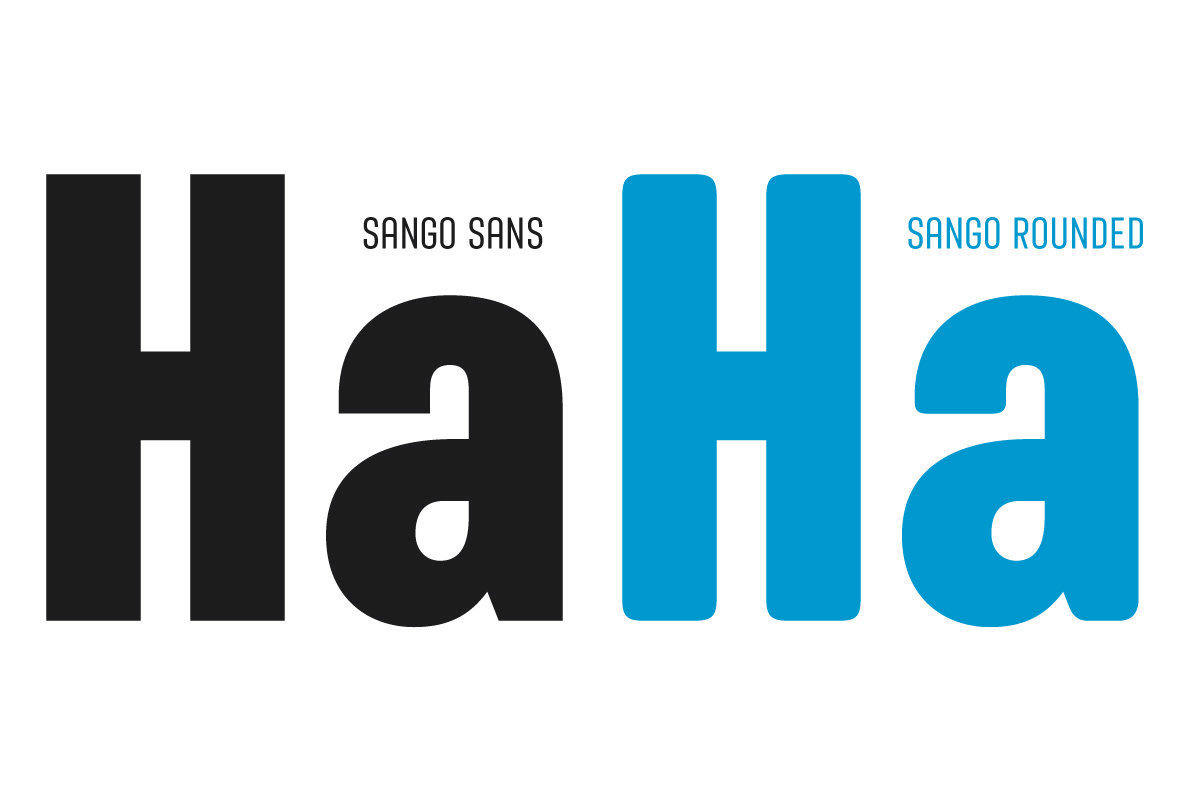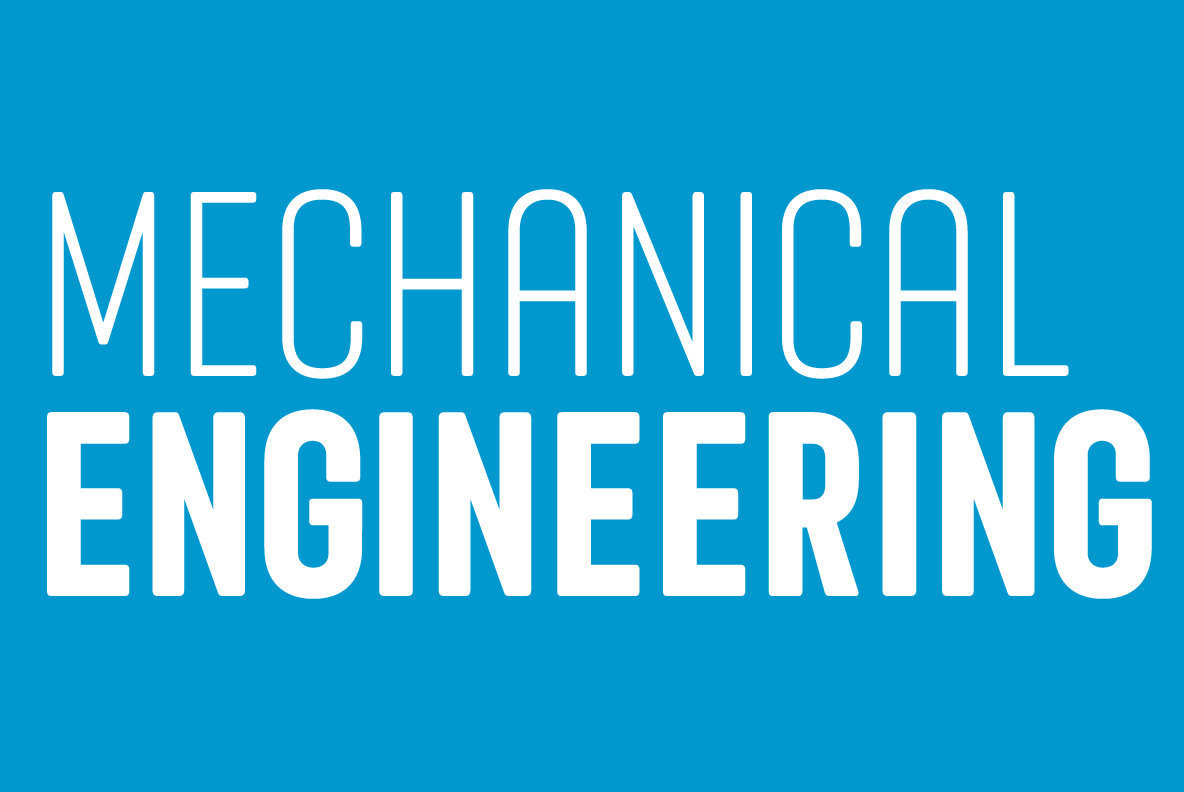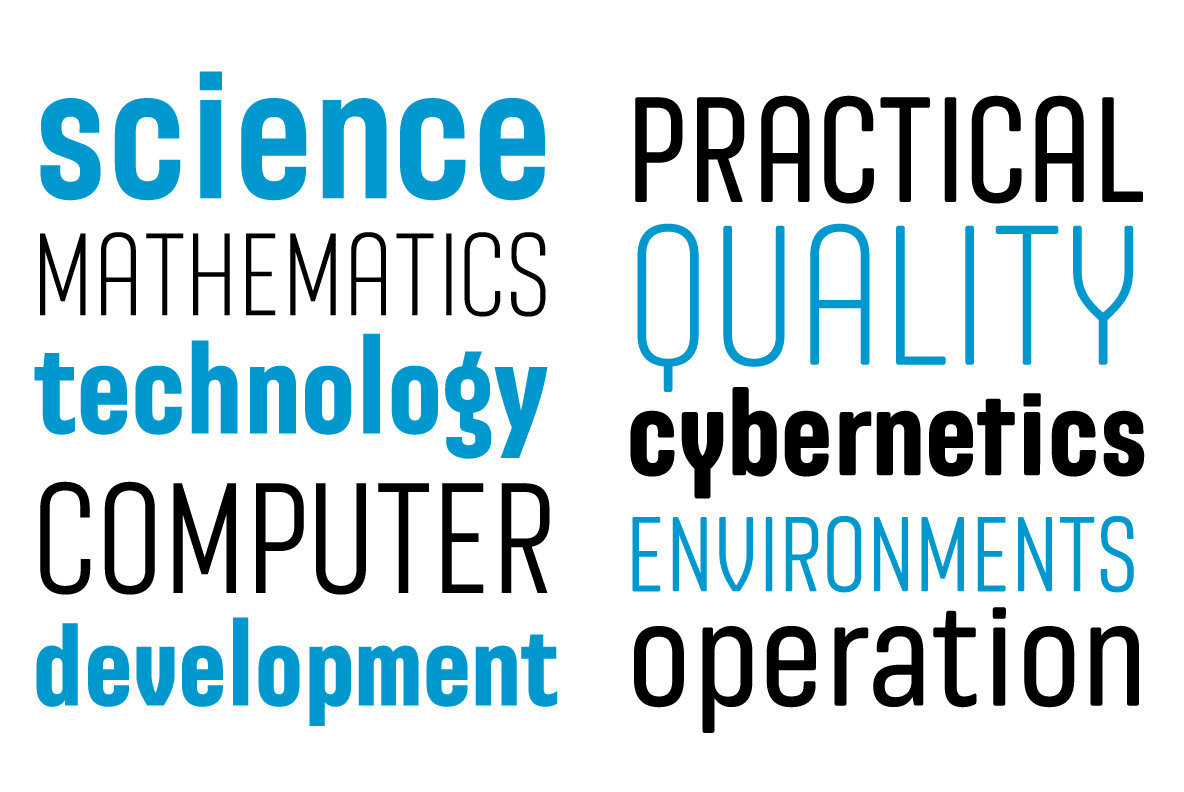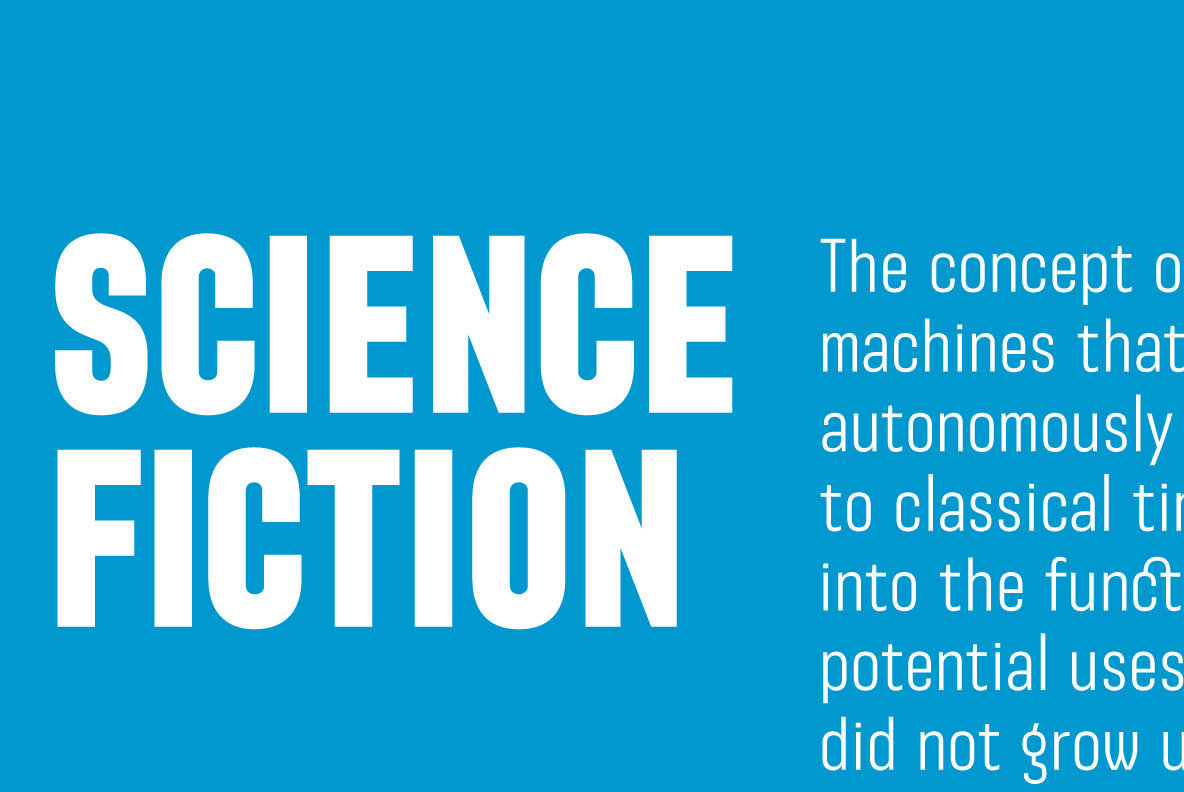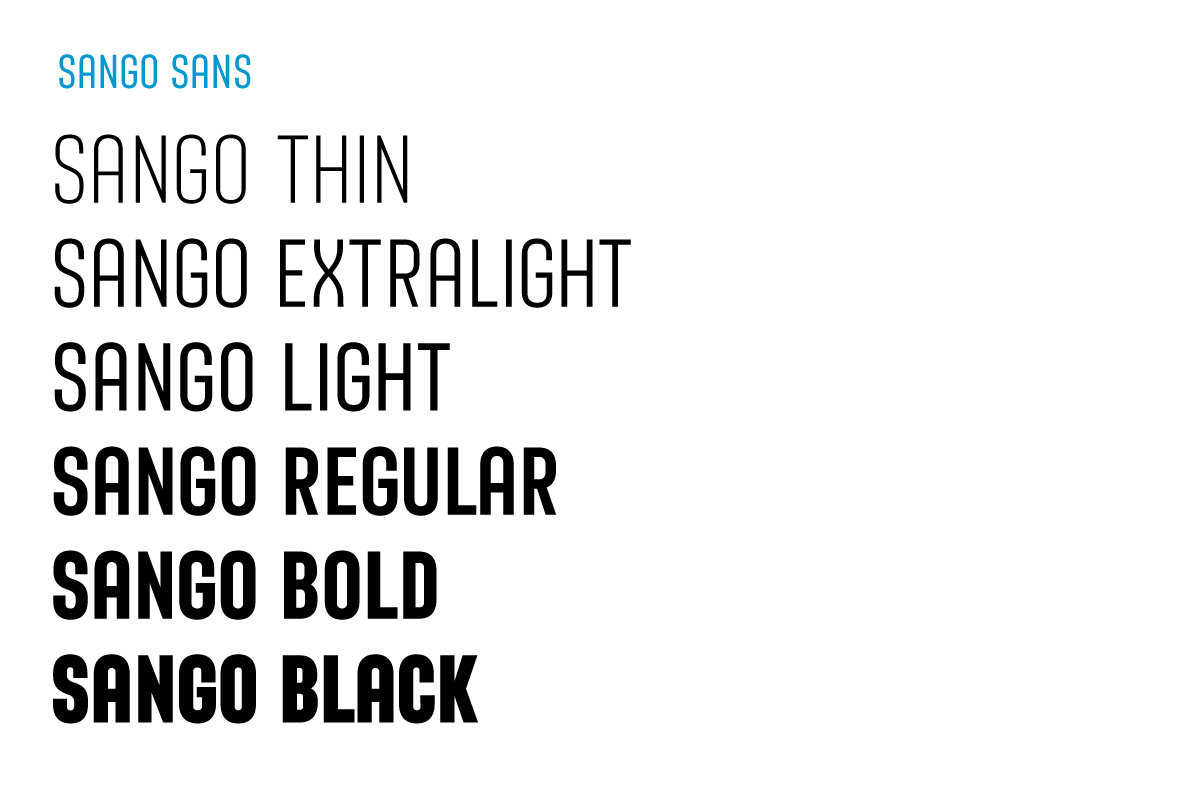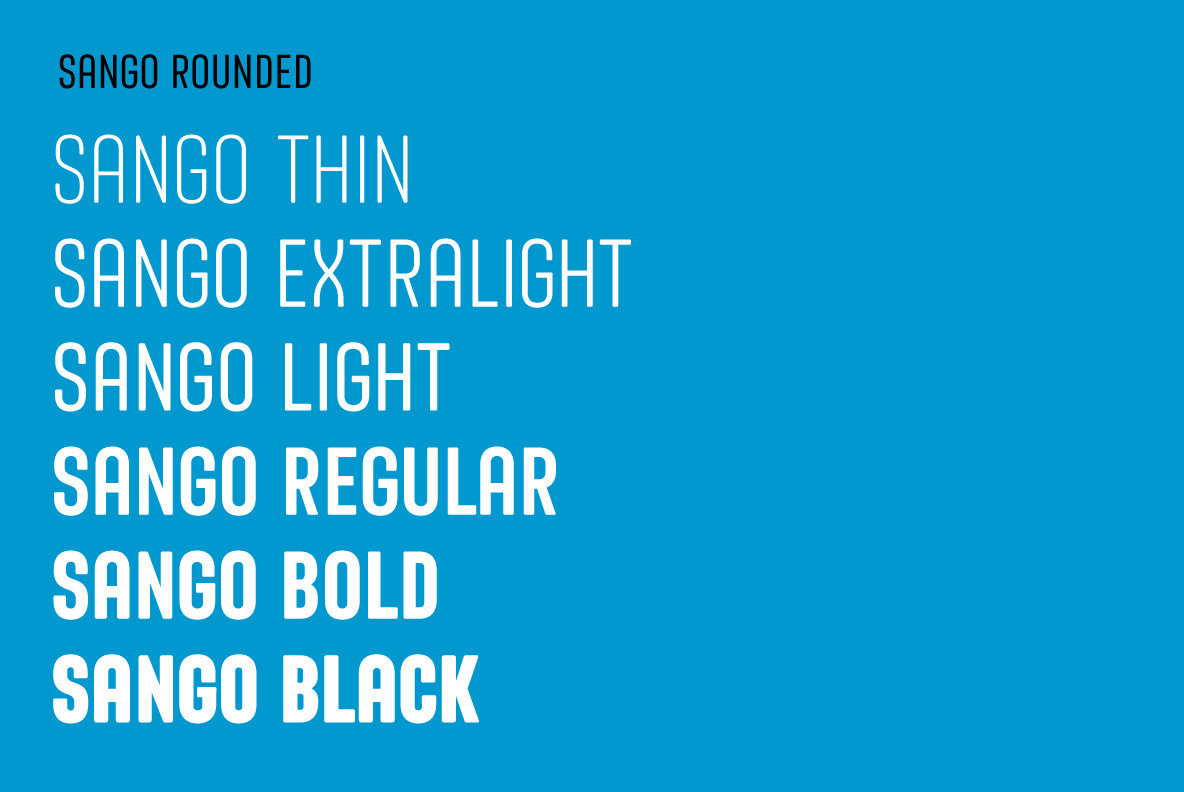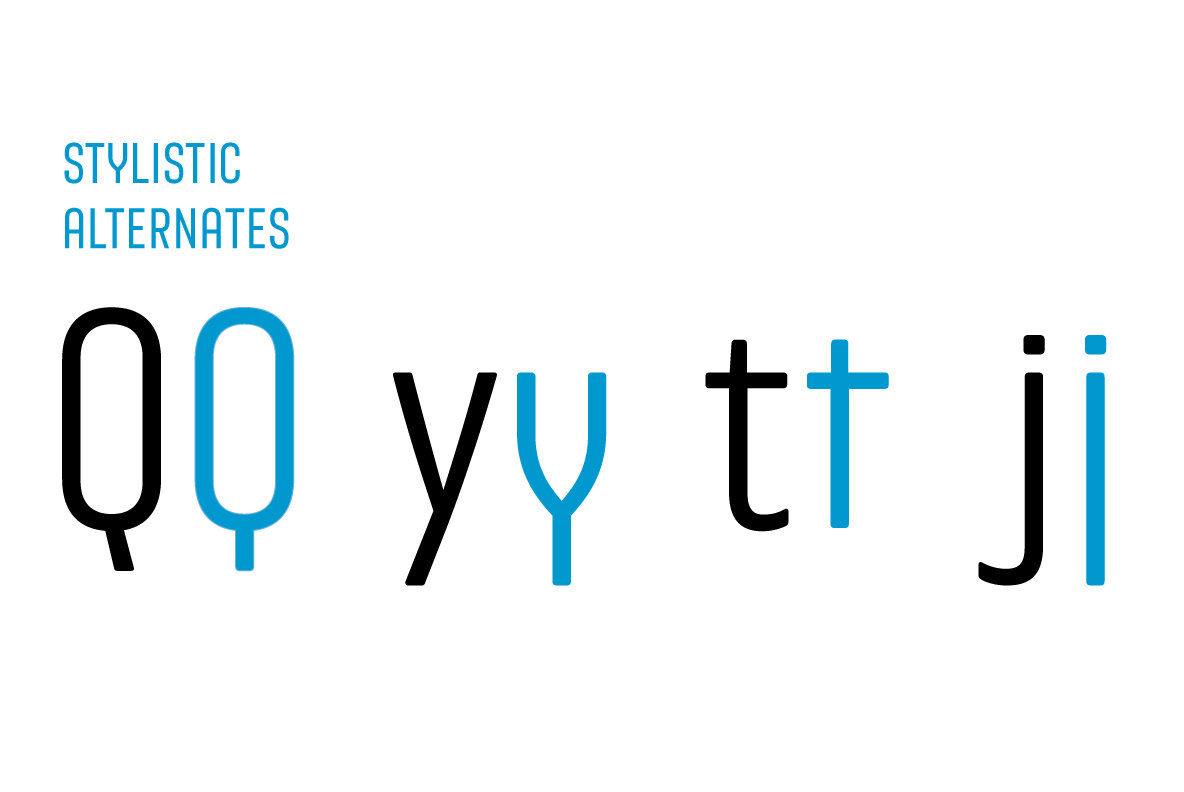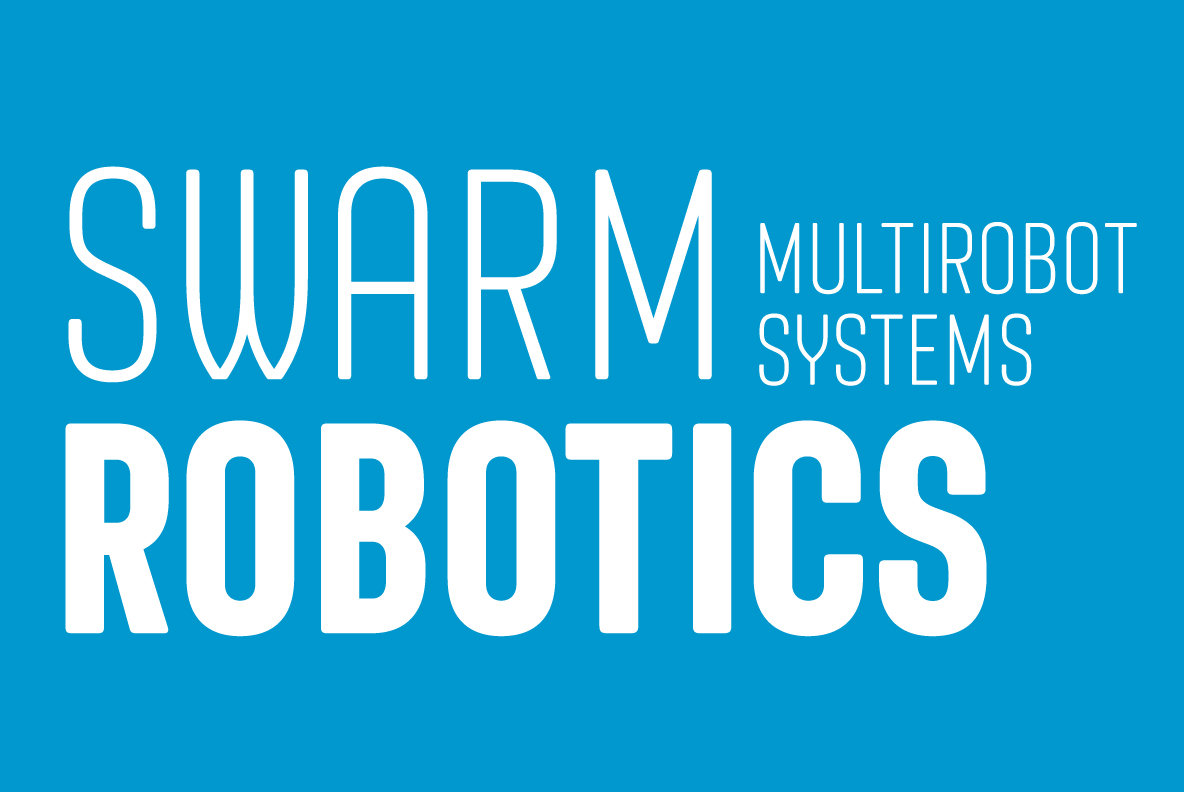
Sango Font
Sango by TYPE714 is a monospaced Sans Serif family defined by its closed forms. Available in both a classic sans and a gently rounded version, Sango spans six distinct weights. This extensive font family is expertly crafted to cater to a wide range of design applications, from publication to corporate identity, offering designers a robust toolkit for branding, wayfinding, and web or screen projects.Sango: Versatile Monospaced Sans Serif